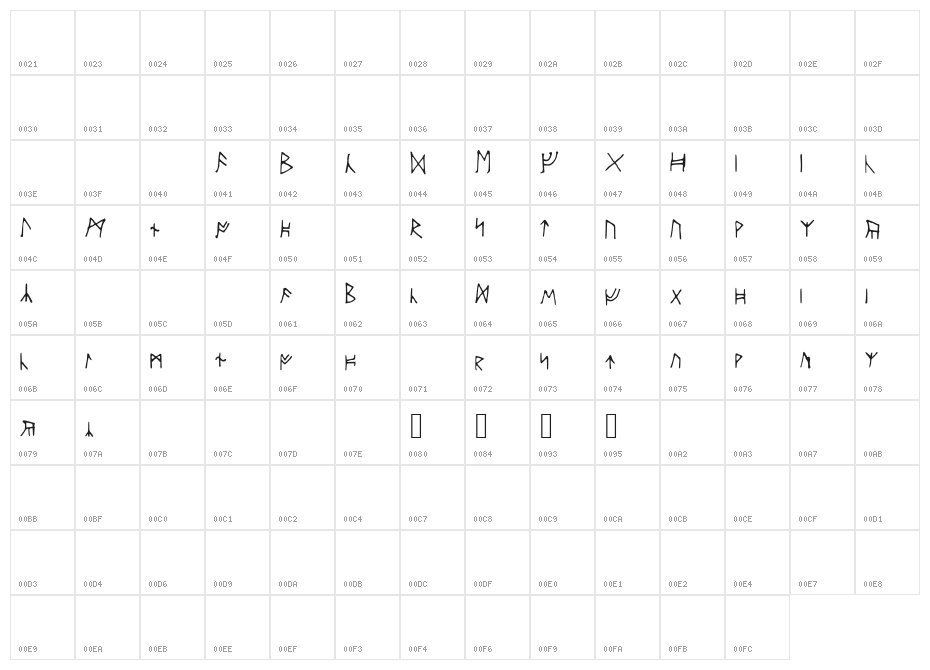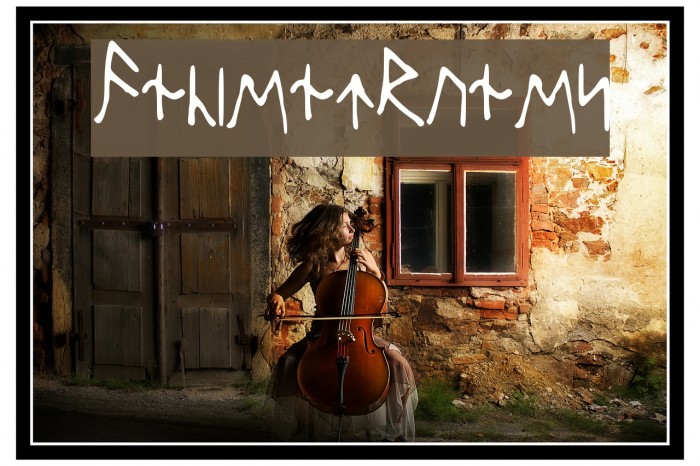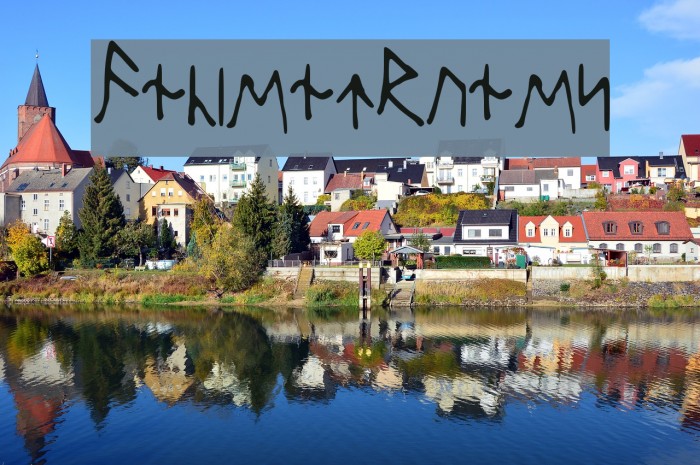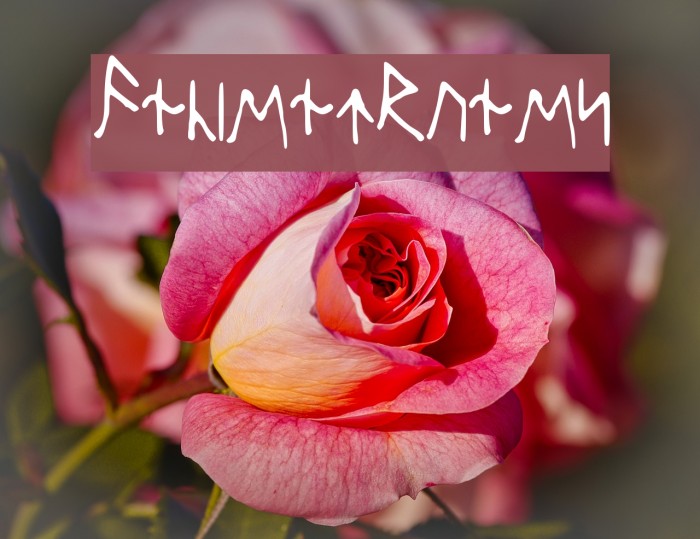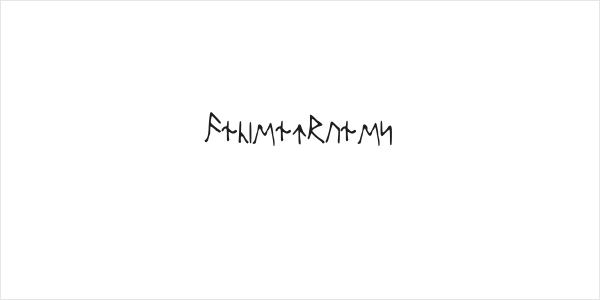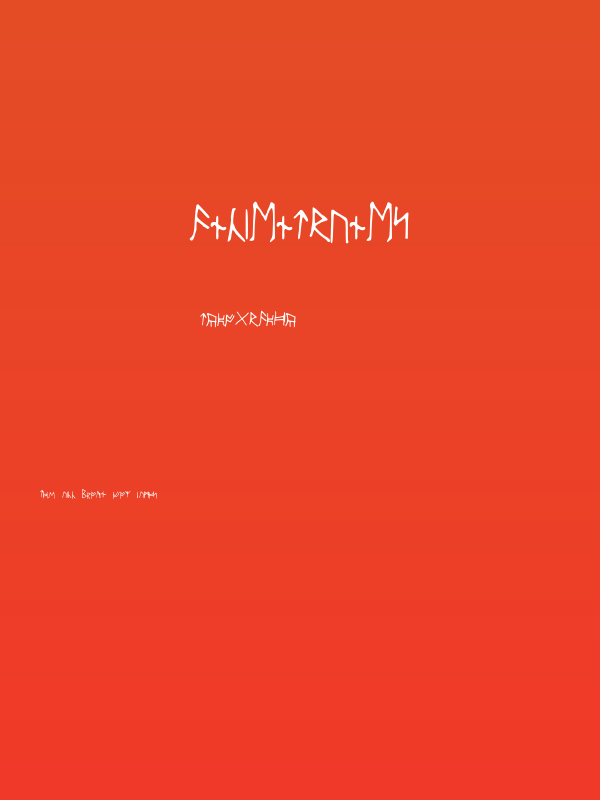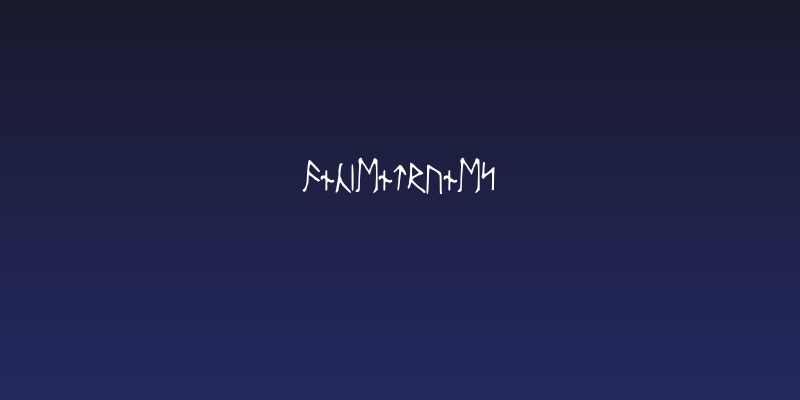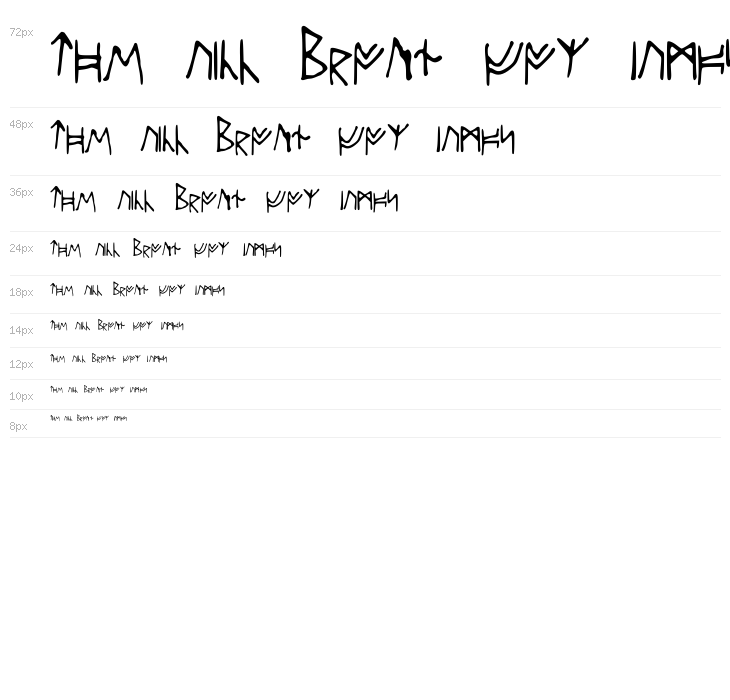
AncientRunes Font
AncientRunes Description
This font is inspired by ancient runic alphabets, featuring angular and linear strokes that evoke a sense of mystery and antiquity. The characters are distinct with sharp edges and varying line thickness, reminiscent of inscriptions carved into stone or wood. Each letter is unique, with some incorporating additional lines or curves that add to the overall ancient aesthetic. The spacing between characters is relatively tight, enhancing the compact and cohesive appearance of the text. This font does not include traditional lowercase letters or numbers, focusing instead on a stylized representation of ancient symbols.
| Use Case | Logos, Posters, Themed Events |
| Proposed Projects | Ideal for fantasy-themed projects, historical recreations, or any design requiring an ancient or mystical touch. |